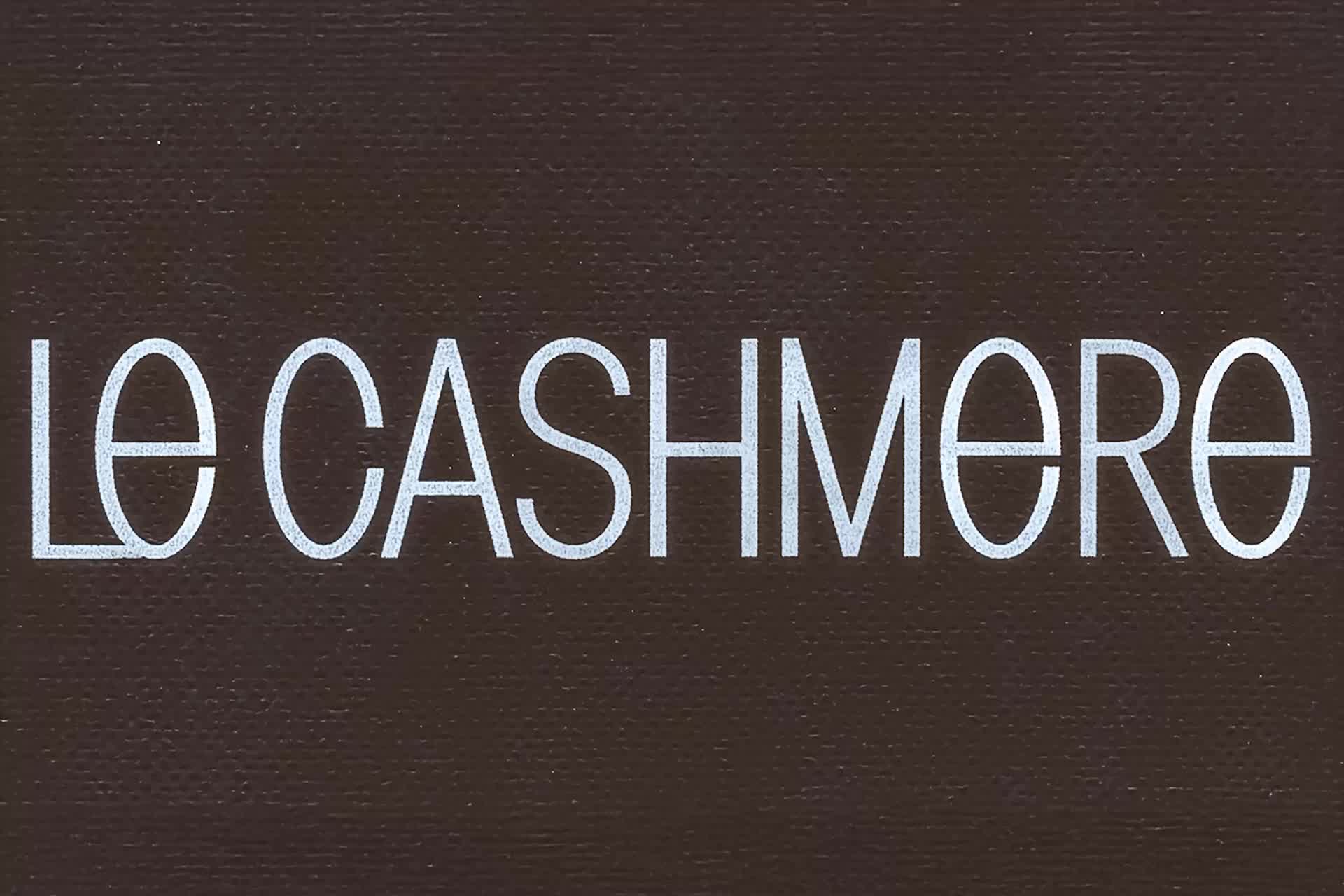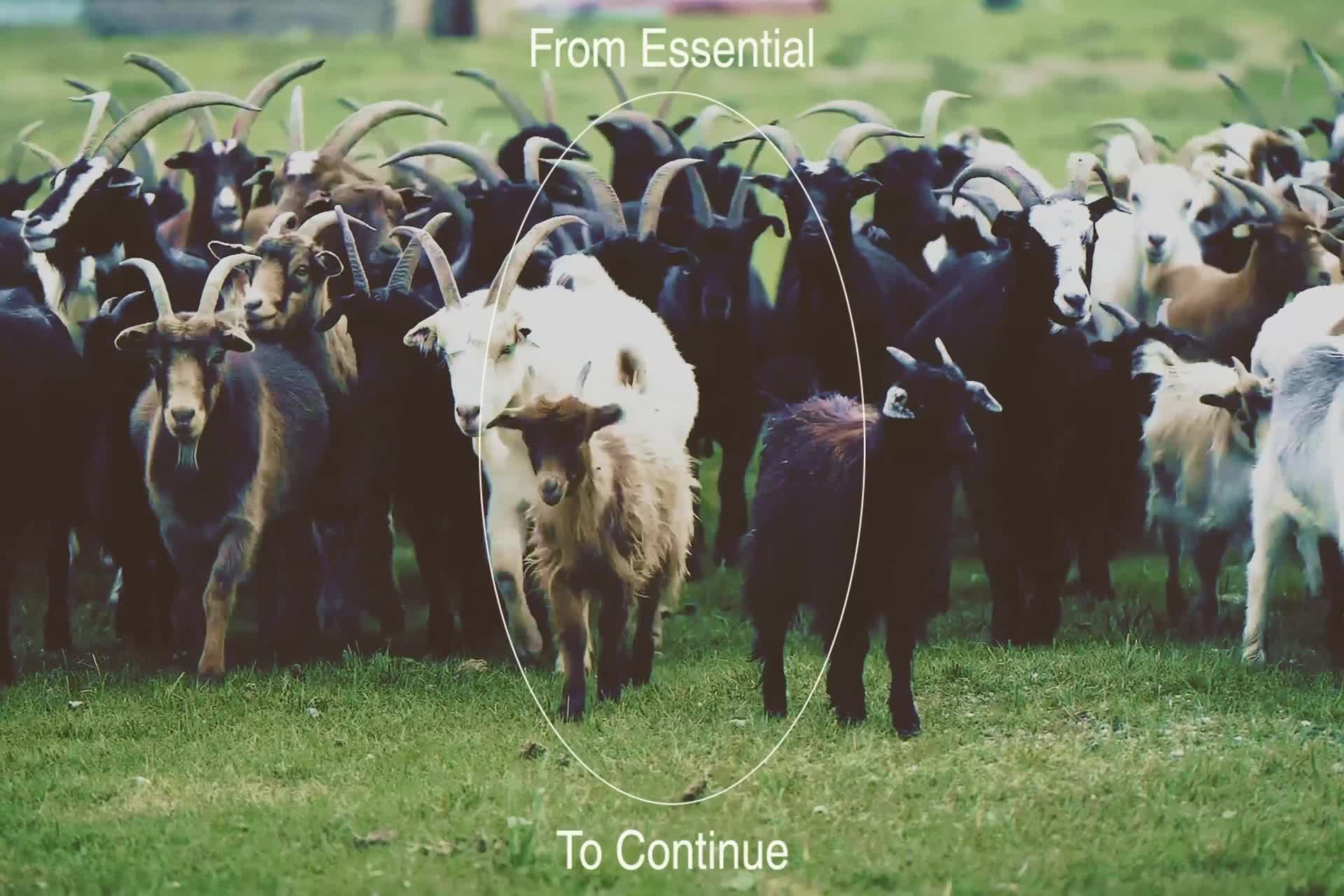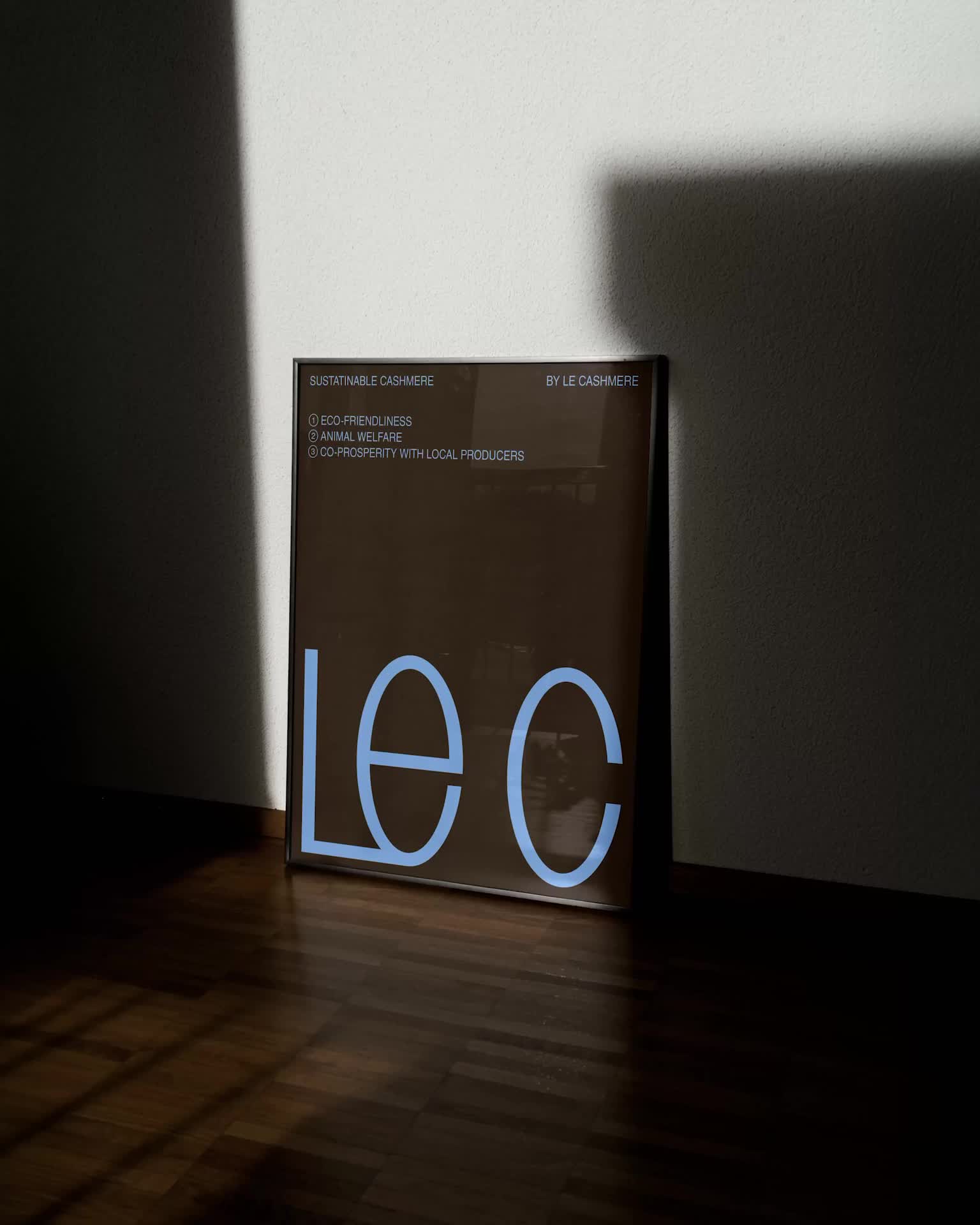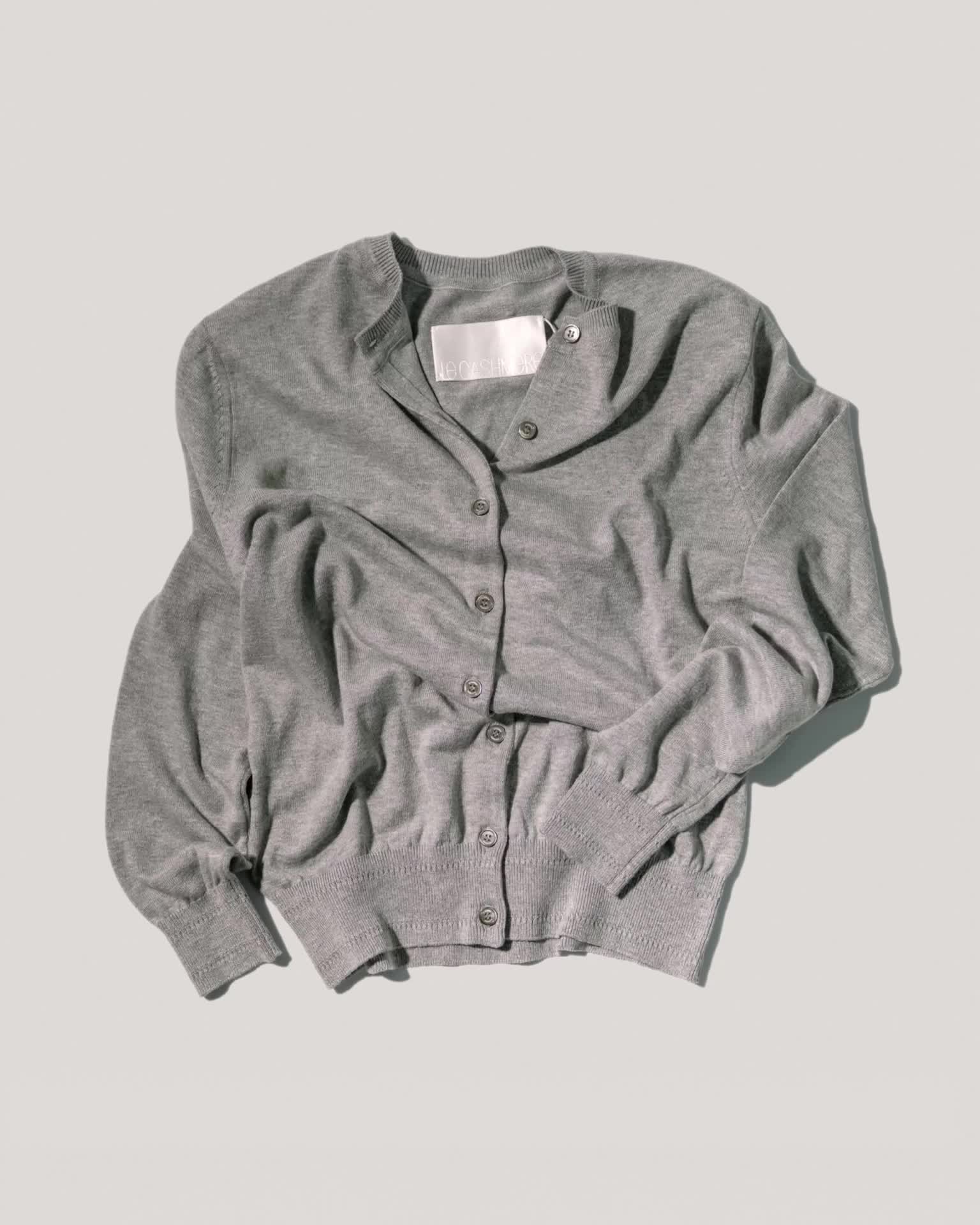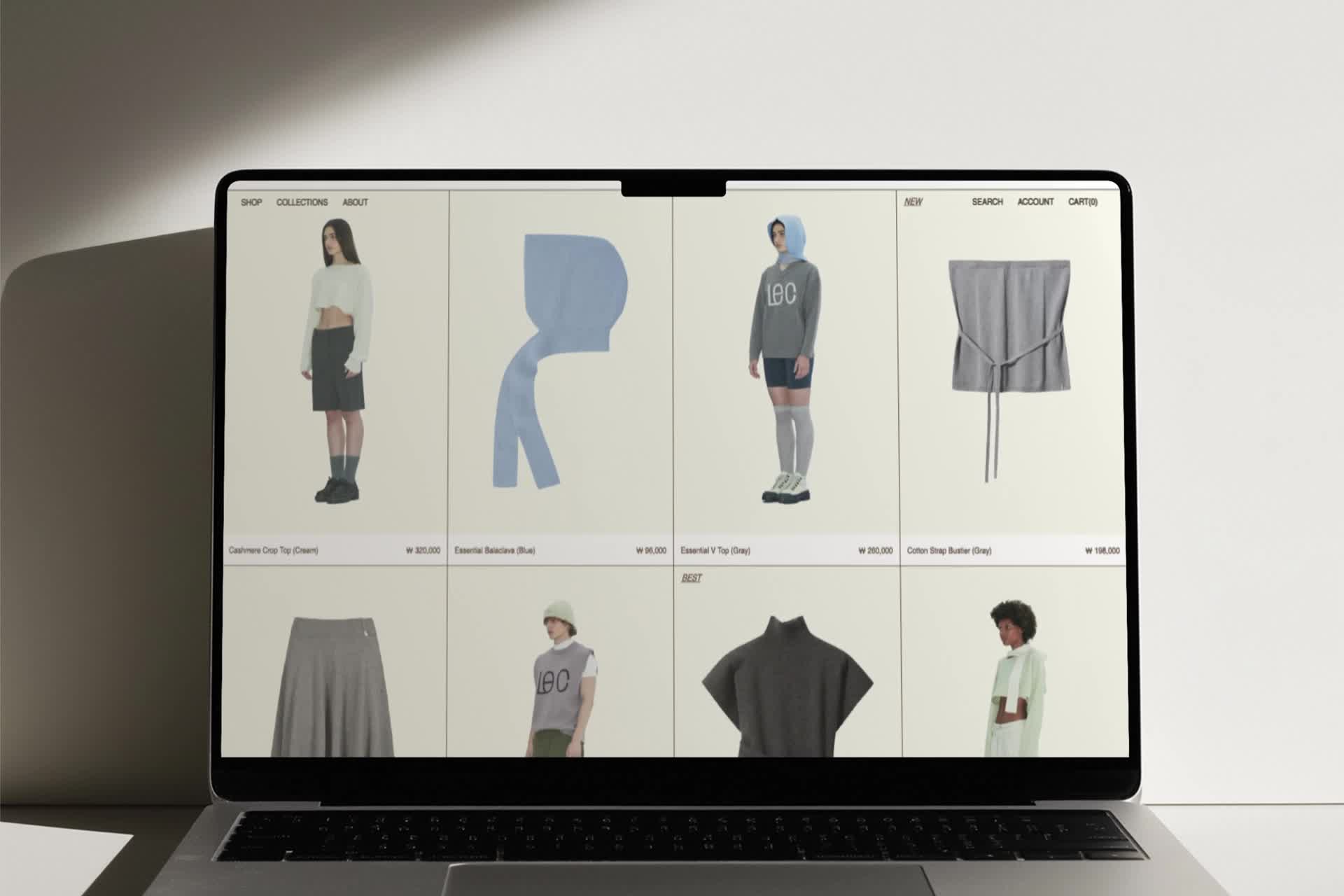
LE CASHMERE
Custom 'e' from ovals and grids becomes DNA for entire unicase alphabet. Ovals = nature/humanity coexistence, grids = sustainable systems. Nimbus Sans L over obvious condensed choices because early digital era looseness beats refined polish. Philosophy built into letterforms.